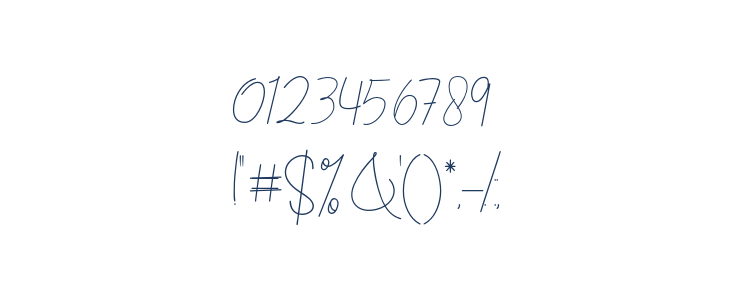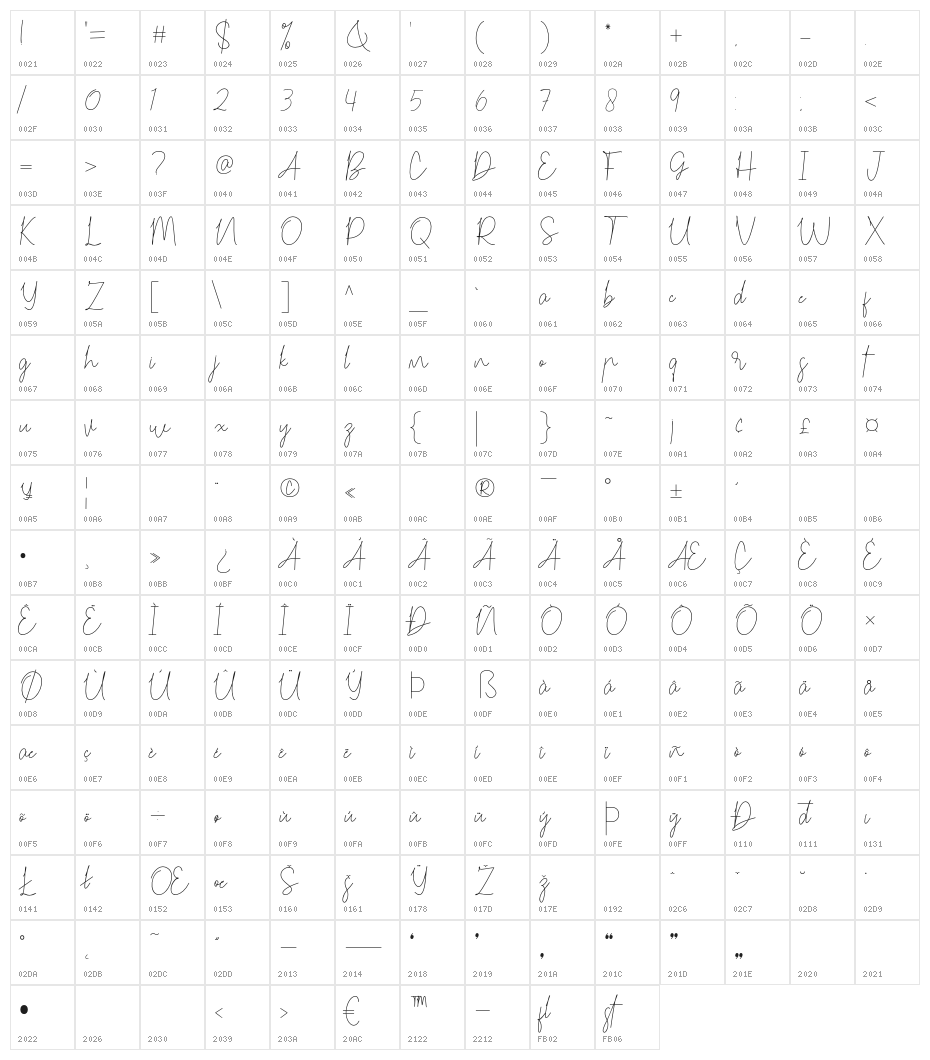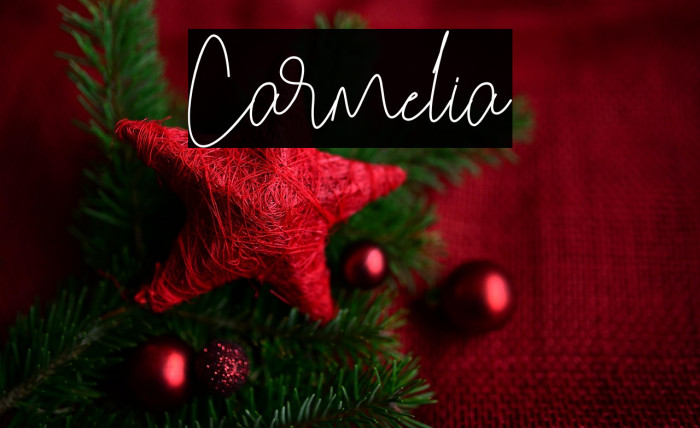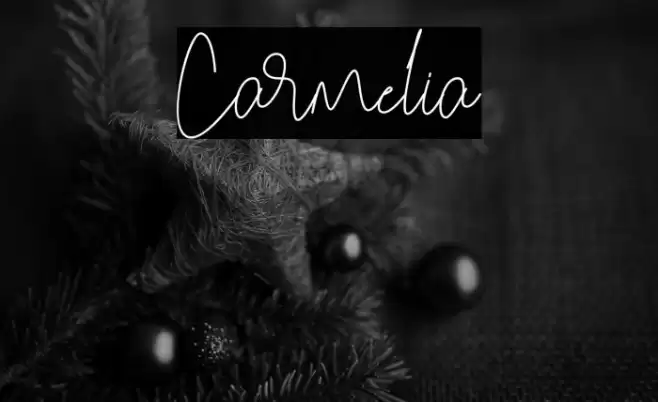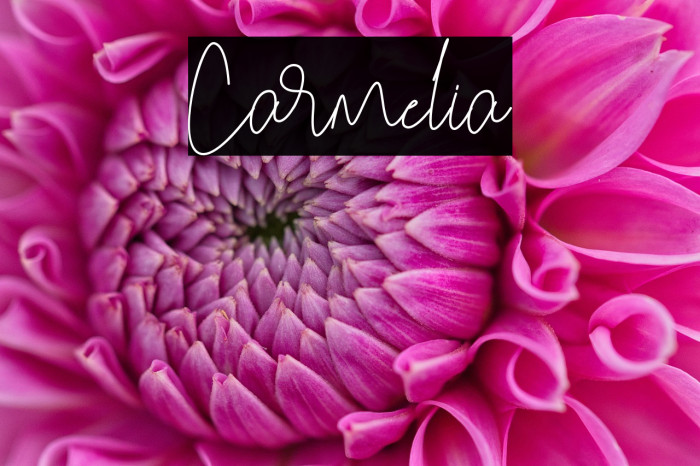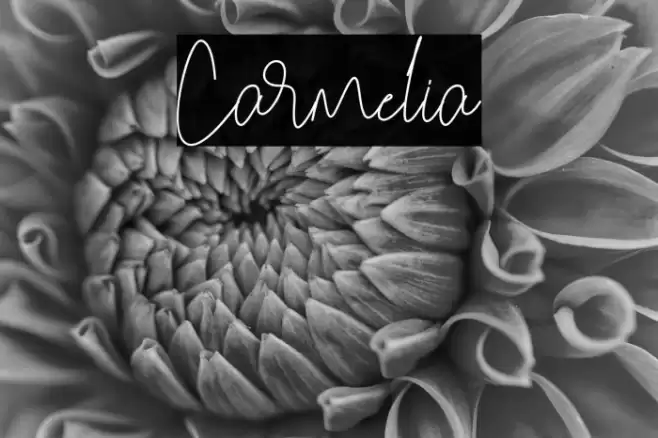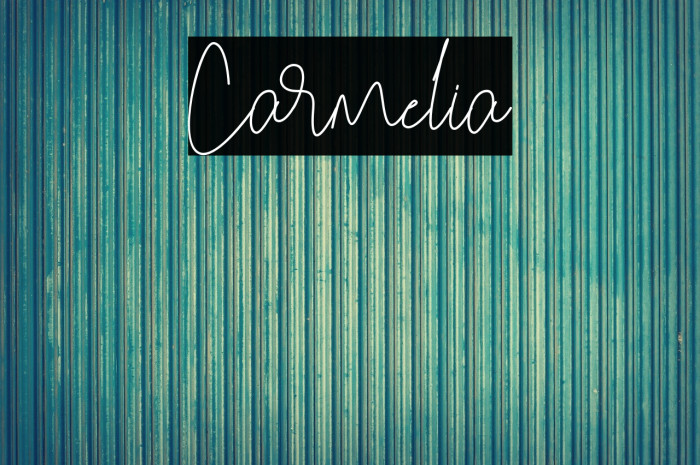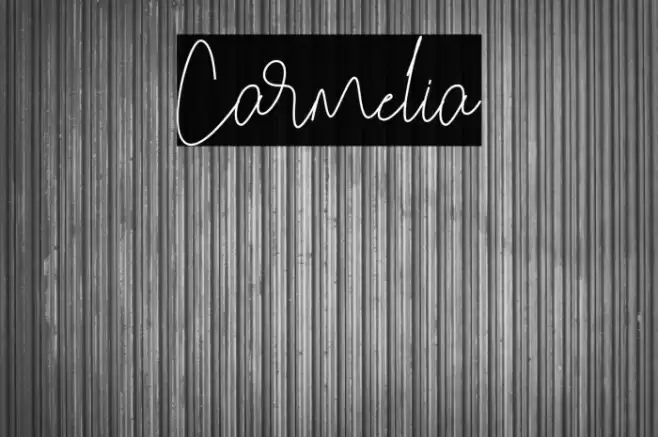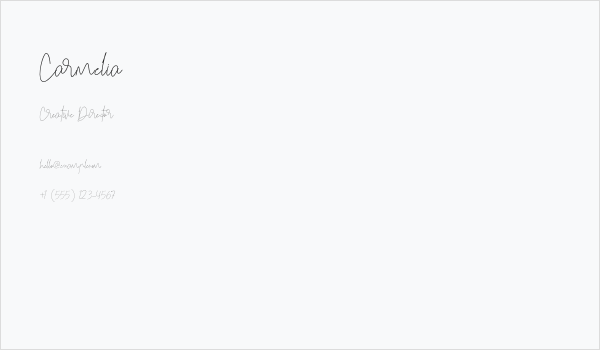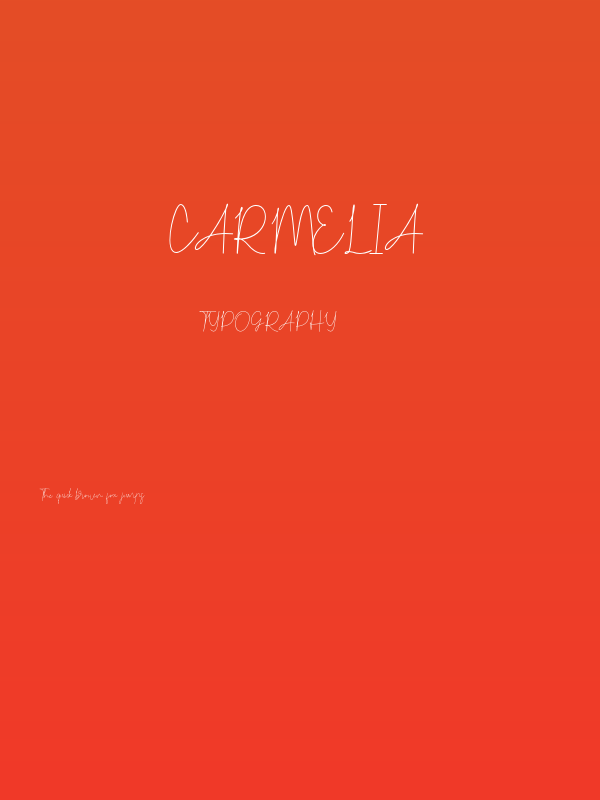
Carmelia Font
Carmelia Description
This font features a delicate and elegant handwritten style, characterized by its fluid and continuous strokes. The uppercase letters are tall and slender, with a slight slant that adds a sense of movement and grace. The lowercase letters maintain a consistent flow, enhancing the script-like appearance. Numbers and special characters are crafted with the same attention to detail, ensuring a cohesive look across all elements. The overall design is airy and light, making it suitable for projects that require a personal and sophisticated touch.
| Overall Style | Elegant and sophisticated |
| Use Case | Logos, Invitations, Personal branding |
| Proposed Projects | Ideal for wedding invitations, personal branding, greeting cards, and elegant stationery. |